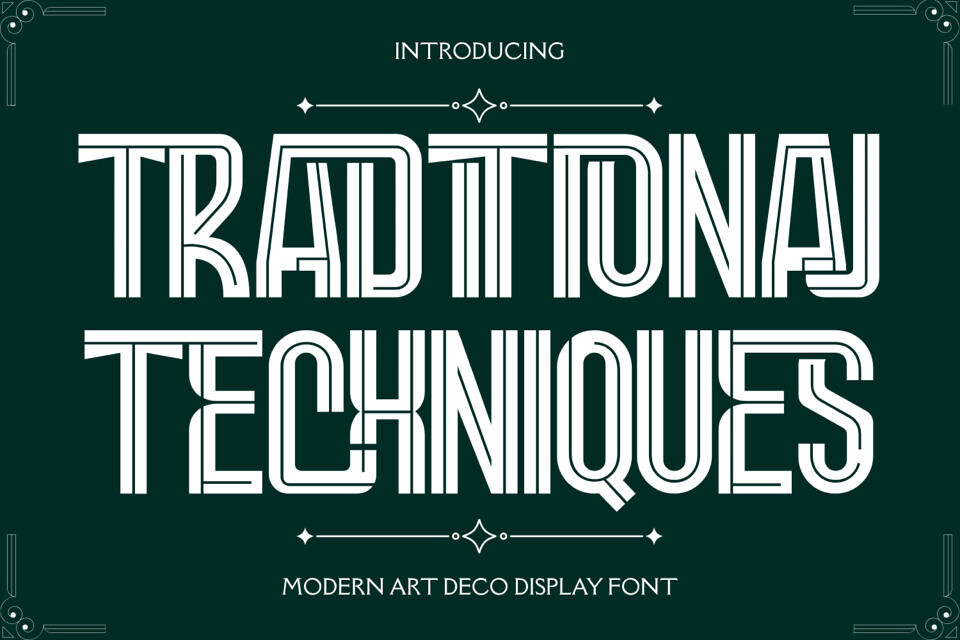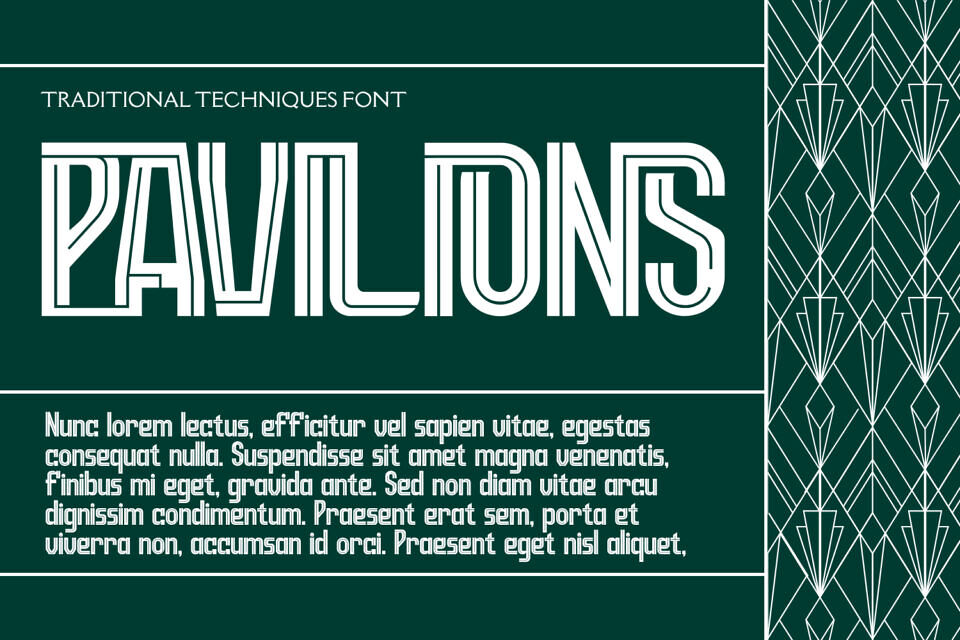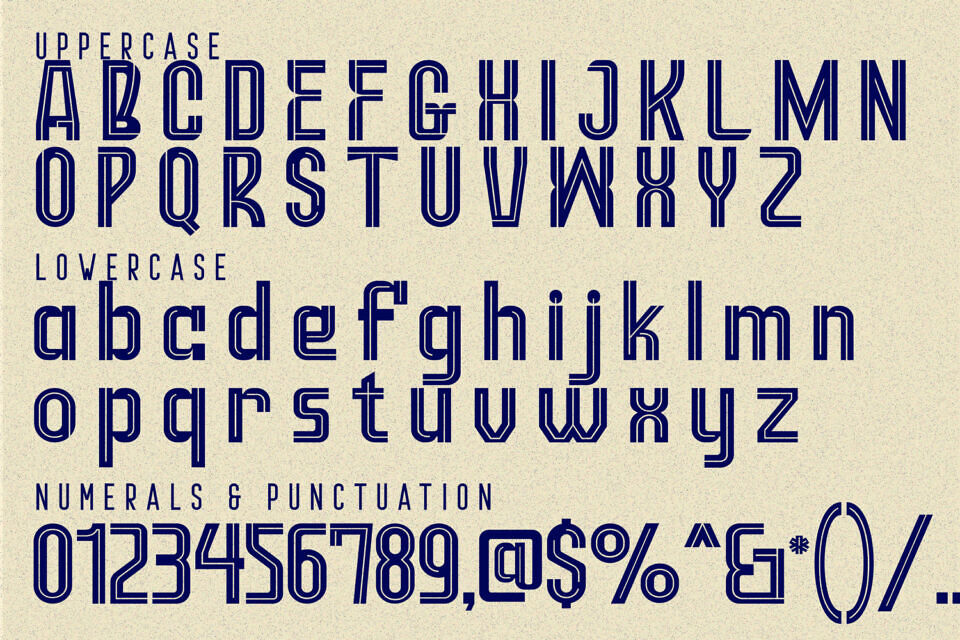
Traditional Techniques is a bold and striking Geometric Sans-Serif Display Font that merges retro aesthetics with modern modular design. Its structured letterforms and layered line details give every word a dynamic and architectural presence. Perfect for posters, branding, sport designs, album covers, editorial layouts, or any creative project that needs a touch of timeless futurism.